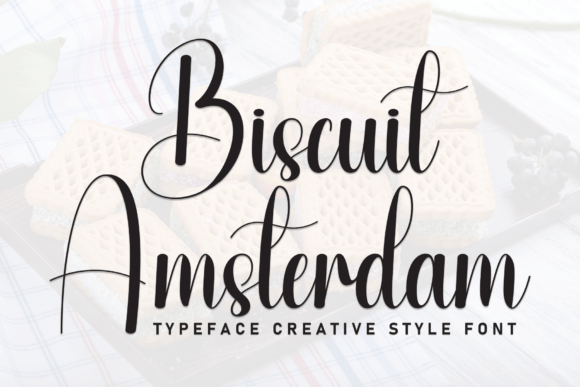
Biscuit Amsterdam Font: The Sweetest Addition to Your Design Projects
Are you looking for a font that can add a touch of sweetness and whimsy to your creative designs? Look no further than the Biscuit Amsterdam Font. This charming and personable handwritten display font is perfect for infusing your projects with a dash of fun and friendliness. In this article, we’ll explore the features and benefits of the Biscuit Amsterdam Font and how it can elevate your designs to the next level.
What Makes Biscuit Amsterdam Font So Special?
The Biscuit Amsterdam Font is a unique and delightful font that is designed to bring a smile to your face. Its charming and personable handwritten style makes it perfect for a variety of design projects, from wedding invites and tailor-made cards to social media graphics and more. Here are some of the key features that make this font so special:
- Handwritten style: The Biscuit Amsterdam Font has a beautiful, handwritten style that is both charming and personable.
- Delightful blend of charm and friendliness: This font has a unique ability to convey a sense of fun and friendliness, making it perfect for designs that need to tug at the heartstrings.
- Perfect for playful designs: Whether you’re creating wedding invites, birthday cards, or social media graphics, the Biscuit Amsterdam Font is perfect for designs that need a touch of whimsy and fun.
How to Use Biscuit Amsterdam Font in Your Designs
The Biscuit Amsterdam Font is a versatile font that can be used in a variety of design projects. Here are some ideas for how you can use this font in your designs:
- Wedding invites: The Biscuit Amsterdam Font is perfect for wedding invites, as it adds a touch of romance and whimsy to your designs.
- Tailor-made cards: This font is also great for creating tailor-made cards for special occasions, such as birthdays, anniversaries, and more.
- Social media graphics: The Biscuit Amsterdam Font is perfect for social media graphics, as it adds a touch of fun and friendliness to your designs.
- Branding and packaging: This font can also be used for branding and packaging designs, as it adds a unique and playful touch to your products.
The Benefits of Using Biscuit Amsterdam Font
The Biscuit Amsterdam Font offers a range of benefits for designers, including:
- Unique and distinctive style: This font has a unique and distinctive style that sets it apart from other fonts.
- Easy to read: The Biscuit Amsterdam Font is easy to read, making it perfect for designs that need to communicate a message.
- Versatile: This font is versatile and can be used in a variety of design projects.
- Time-saving: The Biscuit Amsterdam Font can save you time and effort, as it eliminates the need to create your own handwritten font.
Tips and Tricks for Using Biscuit Amsterdam Font
Here are some tips and tricks for using the Biscuit Amsterdam Font in your designs:
- Use it with a playful color scheme: The Biscuit Amsterdam Font looks great with playful color schemes, such as bright and bold colors.
- Experiment with different sizes: This font looks great in a variety of sizes, from small and delicate to large and bold.
- Pair it with other fonts: The Biscuit Amsterdam Font can be paired with other fonts to create a unique and interesting design.
- Use it to add a personal touch: This font is perfect for adding a personal touch to your designs, as it has a unique and handwritten style.
In conclusion, the Biscuit Amsterdam Font is a charming and personable handwritten display font that is perfect for infusing your creative designs with a touch of sweetness and whimsy. Its unique and distinctive style makes it perfect for a variety of design projects, from wedding invites and tailor-made cards to social media graphics and more. With its delightful blend of charm and friendliness, this font is sure to tug at the heartstrings and ignite smiles.